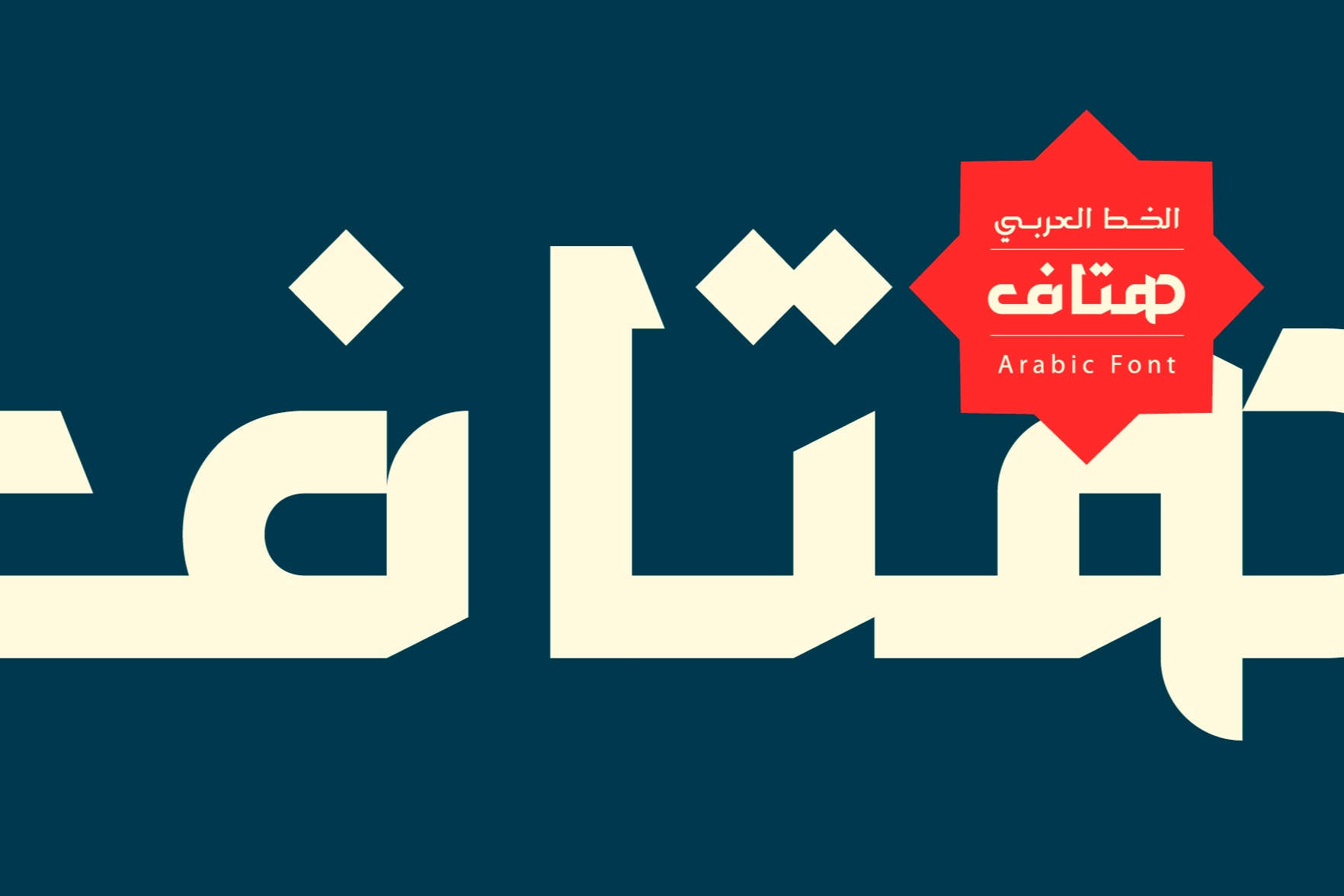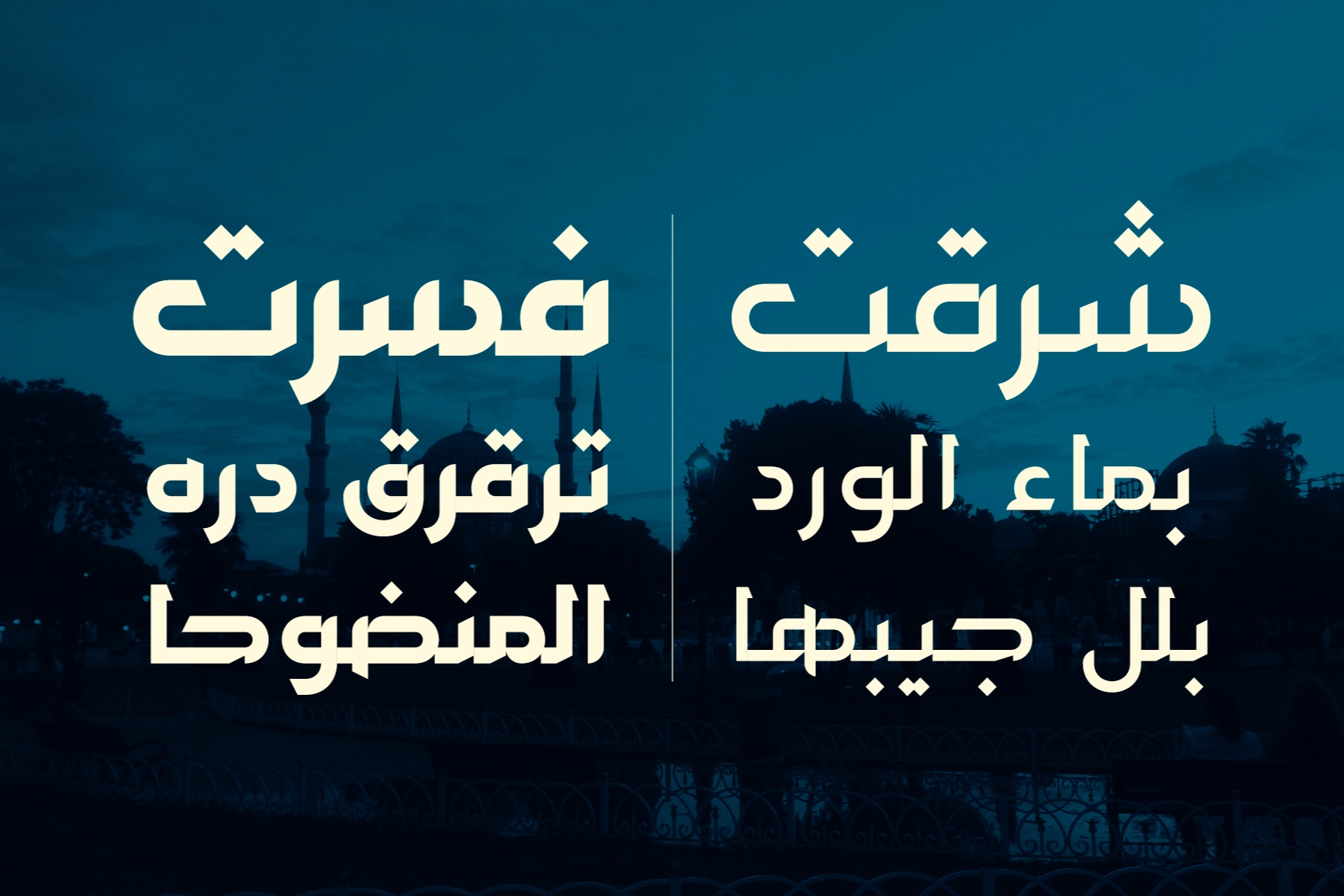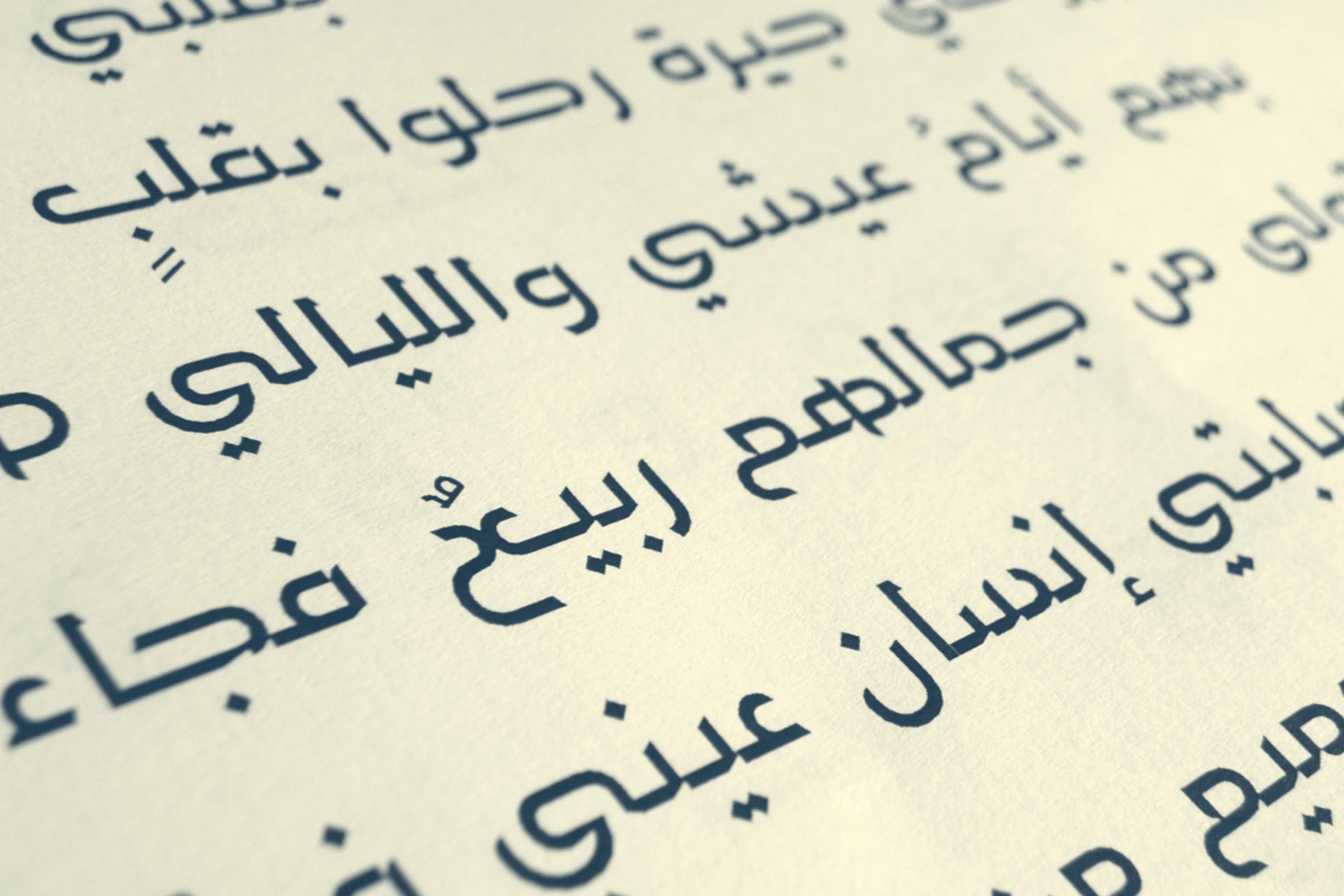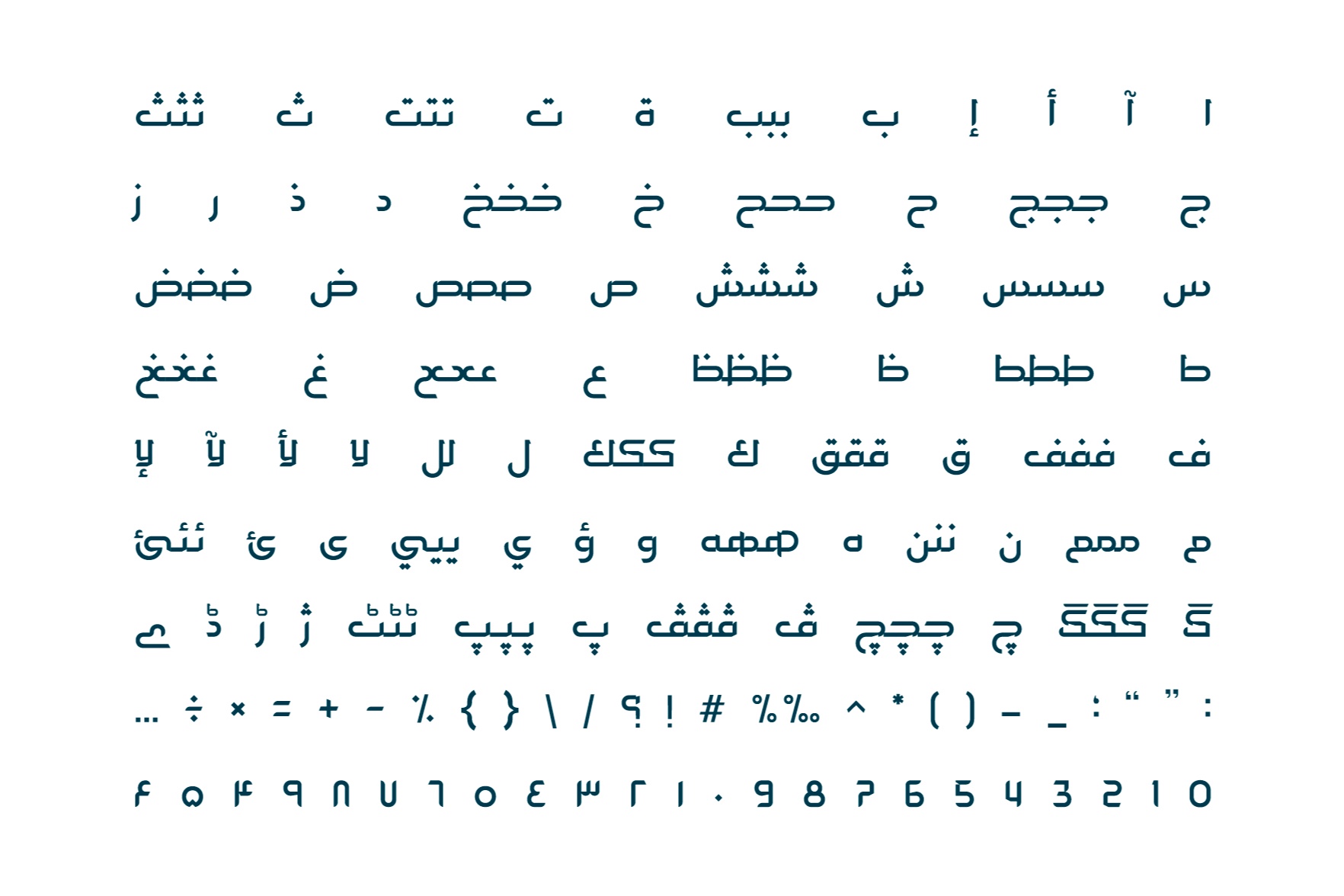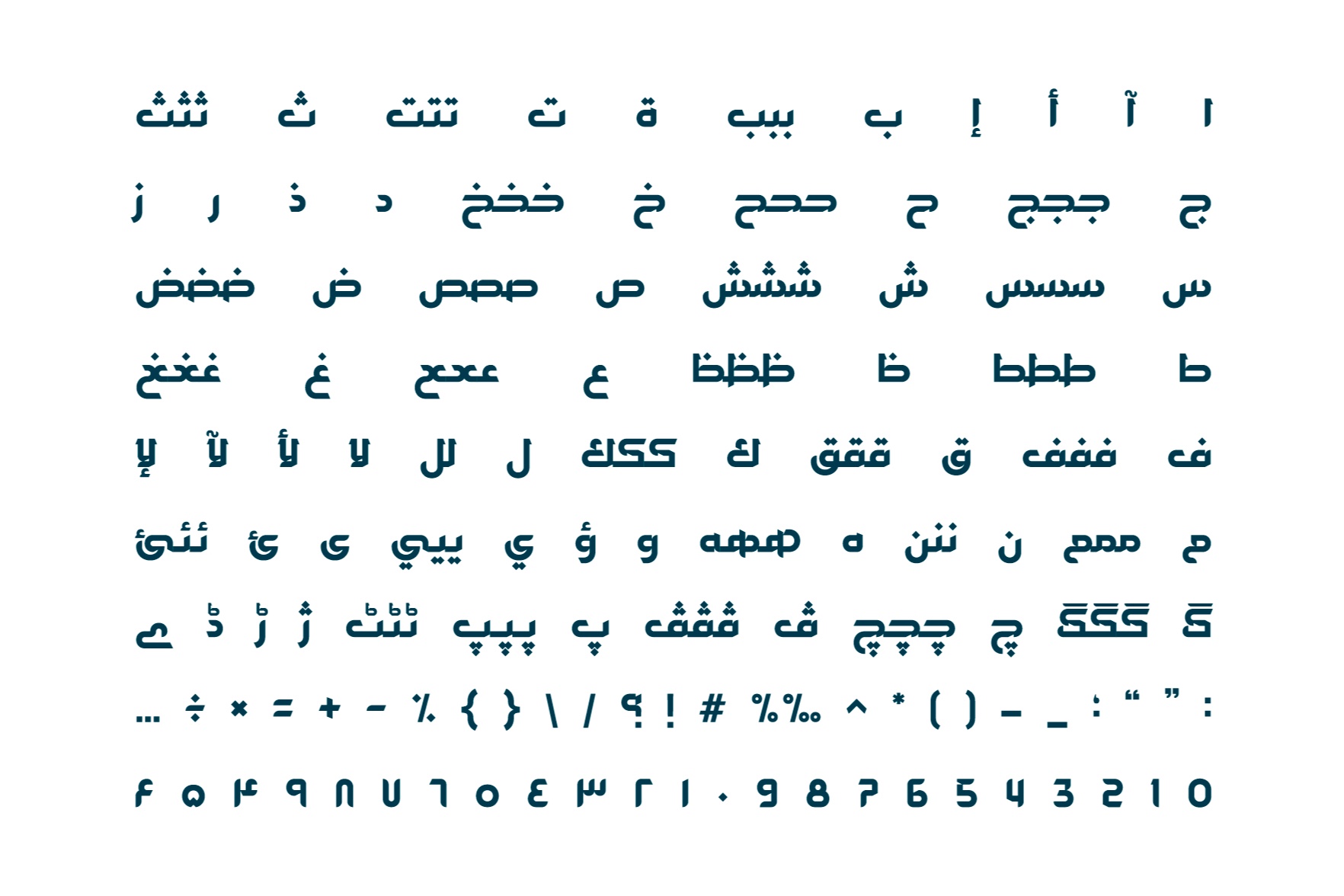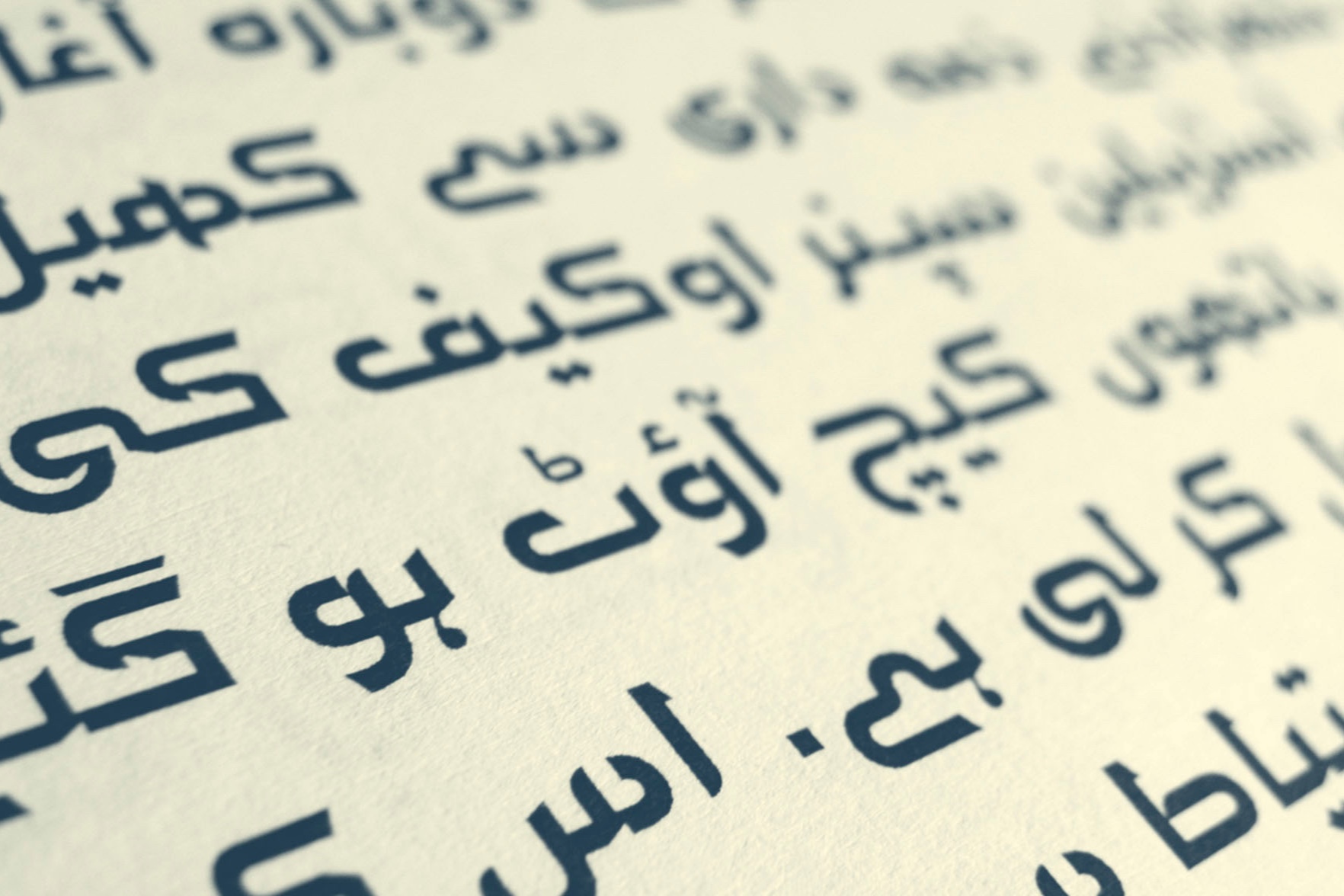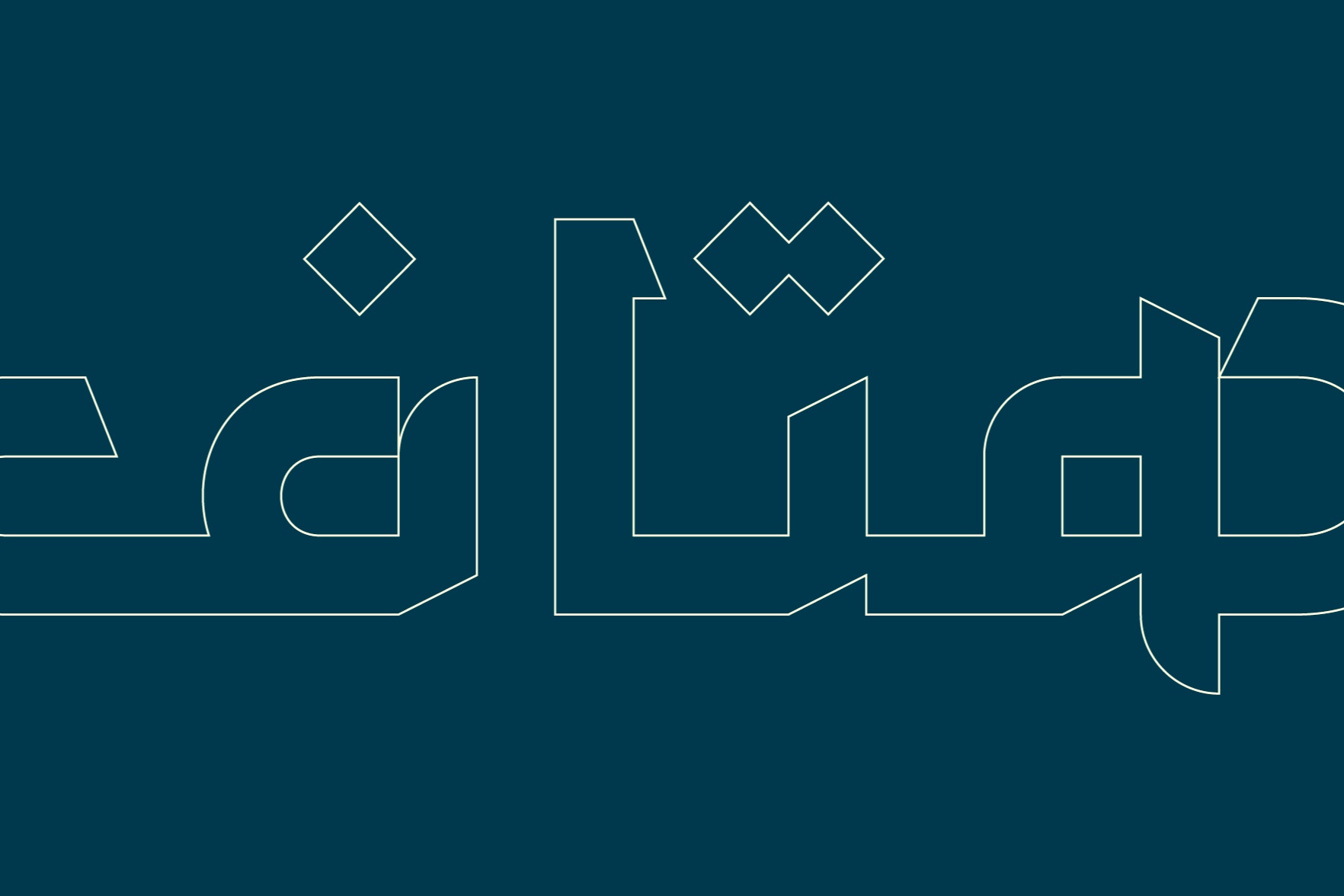
Hetaf is an Arabic typeface designed to provide a distinctive yet comfortable reading experience. Its characters combine subtle notches with refined edges, setting it apart from conventional Arabic script styles. The typeface is suitable for both print and digital media and is available in two weights: Regular and Bold.
330+ Characters
Regular and bold